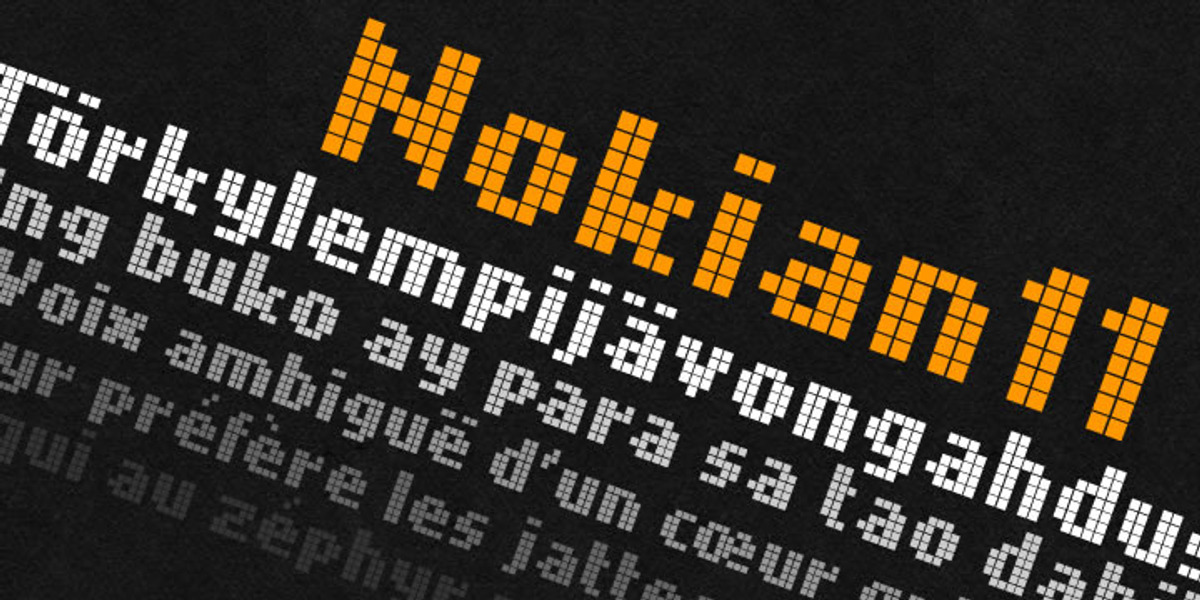
Nokian11
Nokian11 is a pixel font designed to evoke the aesthetic of old Nokia phone displays. Its retro style and monospaced characters make it suitable for projects requiring a vintage technological feel, such as programming interfaces, game design, or graphic elements with a nostalgic touch.